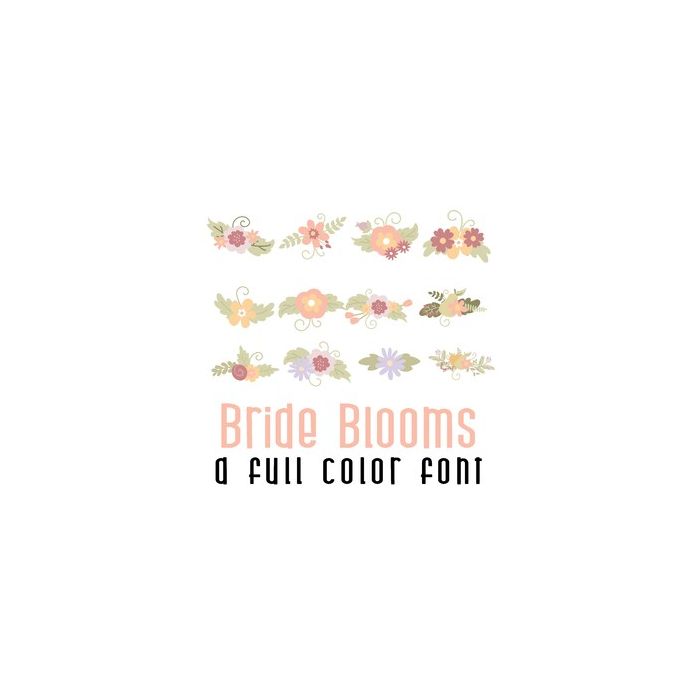
This adorable full-color doodlebat font features 26 beautiful florals in bridal colors. Perfect for weddings, cards, crafts, gifts, decor, scrapbook pages, planner stickers, and more!